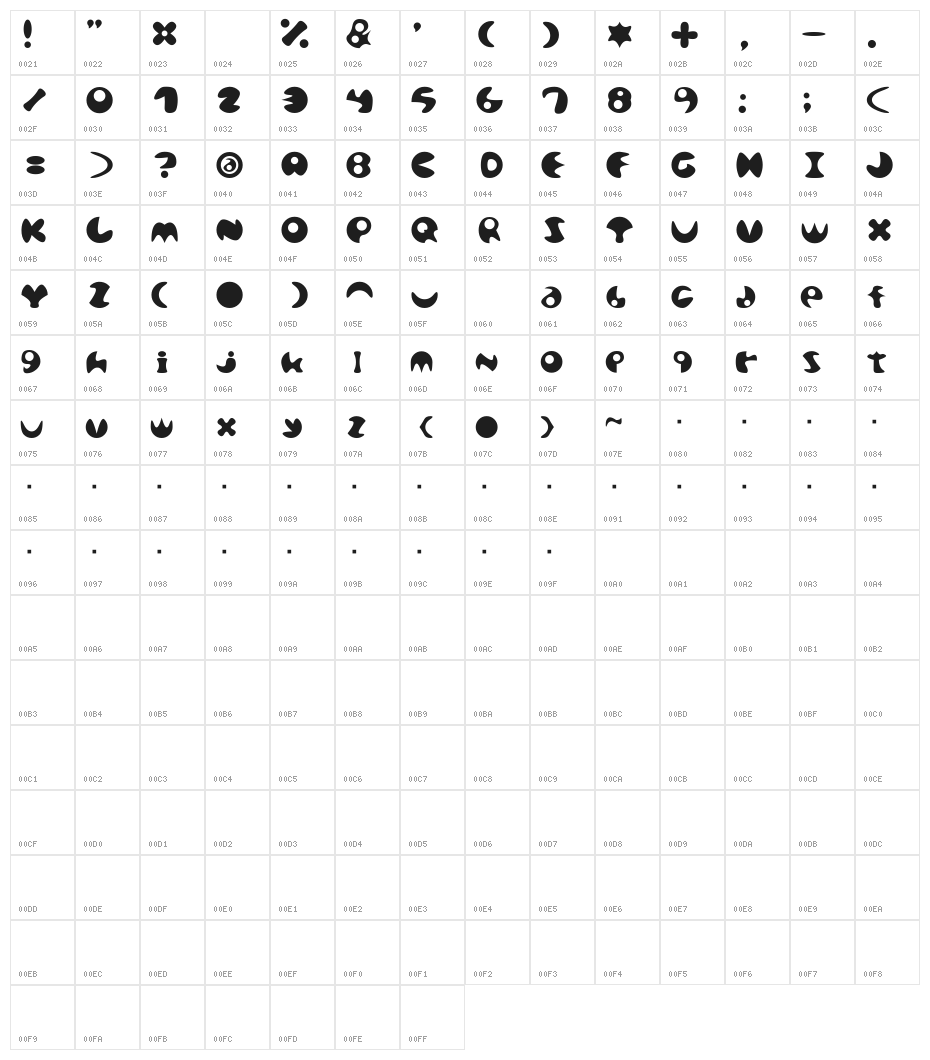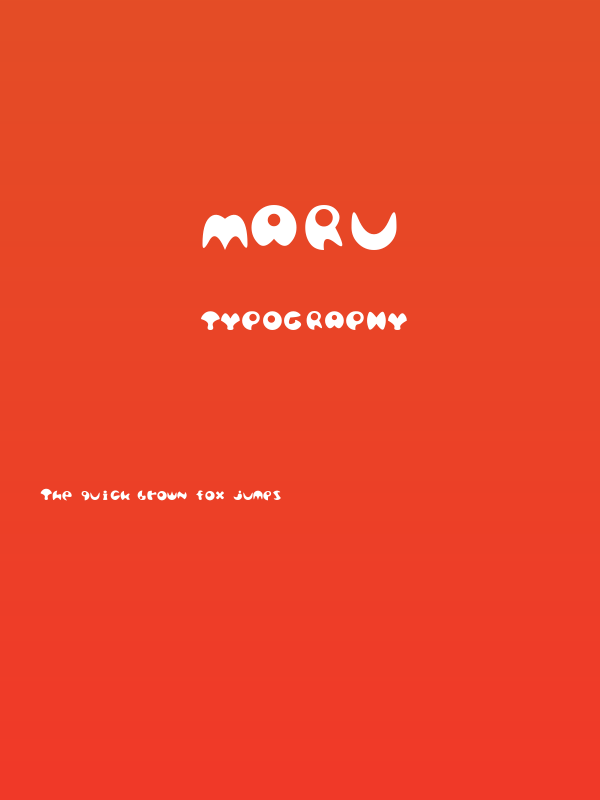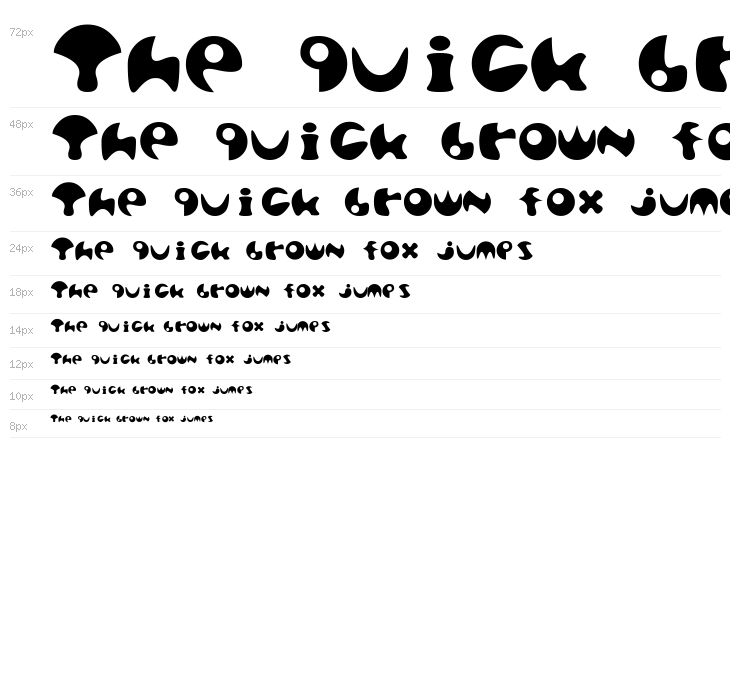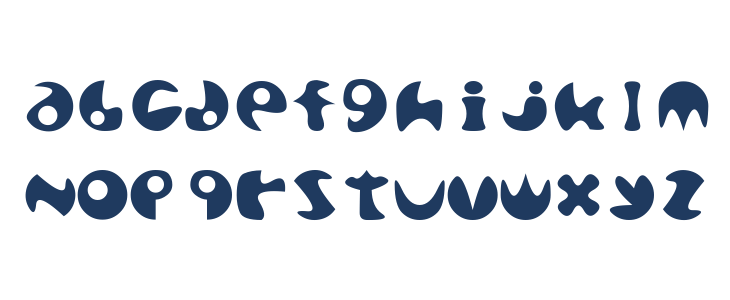
maru Font
maru Description
This font features a playful and bold design with rounded, bubble-like characters that convey a sense of fun and creativity. The letters are thick and have a consistent weight throughout, giving them a strong presence on the page. The unique shapes of each character add a whimsical touch, making it ideal for projects that require a lively and engaging aesthetic. The font includes both uppercase and lowercase letters, numbers, and a variety of special characters, all maintaining the same playful style. Its distinct appearance makes it stand out, perfect for capturing attention in creative and informal settings.
Overall StylePlayful
Proposed ProjectsIdeal for children's books, playful branding, party invitations, and creative posters.